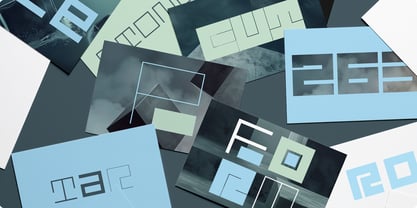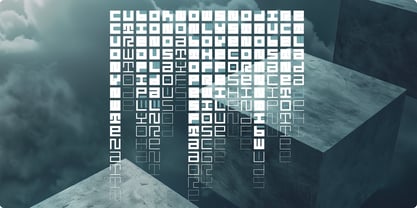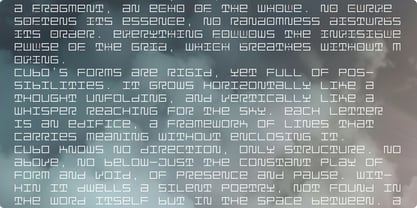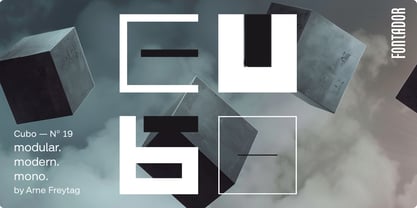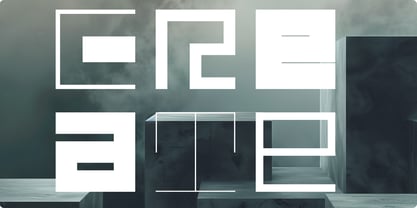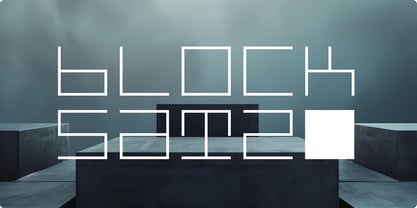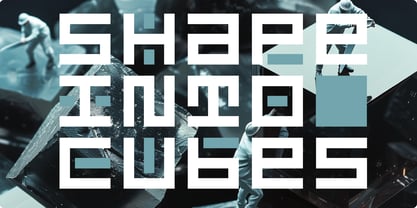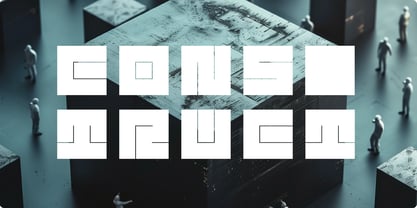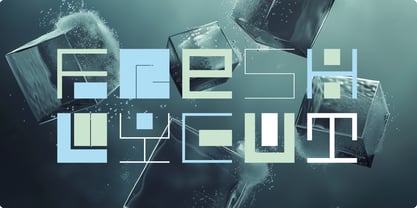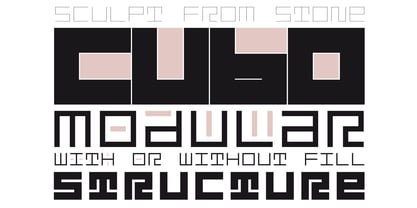
Cubo
by Fontador
The Cubo Font Family was designed by Arne Freytag and published by Fontador. Cubo contains 17 styles and family package options.
Cubo is a constructed sans serif based on a square basic form. Each glyph follows this strict grid, which keeps the font monospaced and gives it a consistent structure.
The optional ‘fill’ cuts make it possible to fill all characters with dummy material so that not only the shapes harmonise, but also the grey value remains balanced. This creates a compact, visually balanced typography that is particularly strong in modular designs.
Cubo is ideal for logotypes, bold headlines and decorative typesetting. Its modular character invites creative experimentation - building, combining, modelling and inventing ... Its simple geometry and consistent construction lend any design an unmistakable, modern aesthetic.
About Fontador
Fontador is a small type foundry based in Hamburg, founded by Arne Freytag.¶He was born in Hamburg in 1967. In 1995, he won a scholarship to study Graphic Design at the Kunstschule Alsterdamm art school in Hamburg. As a post graduate in 1998, he attended the Atelier National de Recherche Typographique in Paris. He has published various articles in Tipografica, étapes and the Typografische Monatsblätter. He has been working as a freelance typographic and graphic designer since 2000.